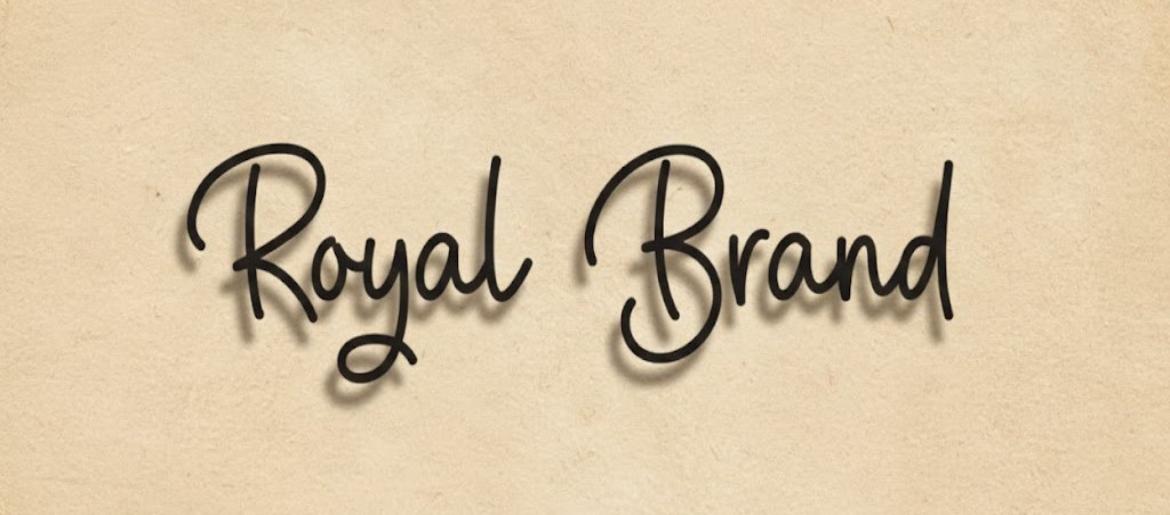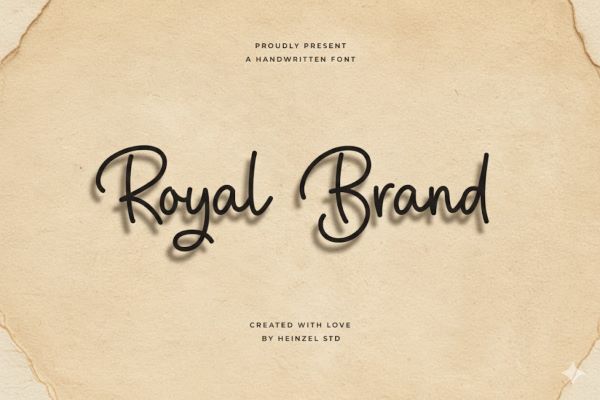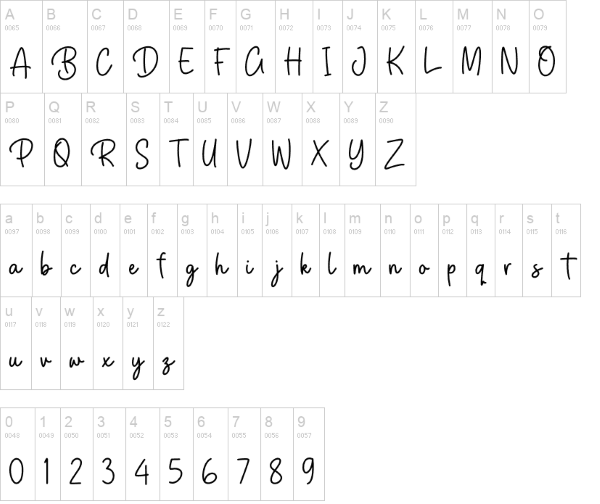
Royal Brand Font
Royal Brand Font is a stylish handwritten typeface that blends elegance with a natural, modern feel. Featuring smooth curves and balanced letterforms, it delivers a warm yet confident personality. Ideal for logos, branding, invitations, packaging, quotes, and social media graphics, Royal Brand offers excellent readability while maintaining a refined, professional handwritten appearance.
➤ Font Name: Royal Brand
➤ Designer: Heinzel Std
➤ Style: Handwritten